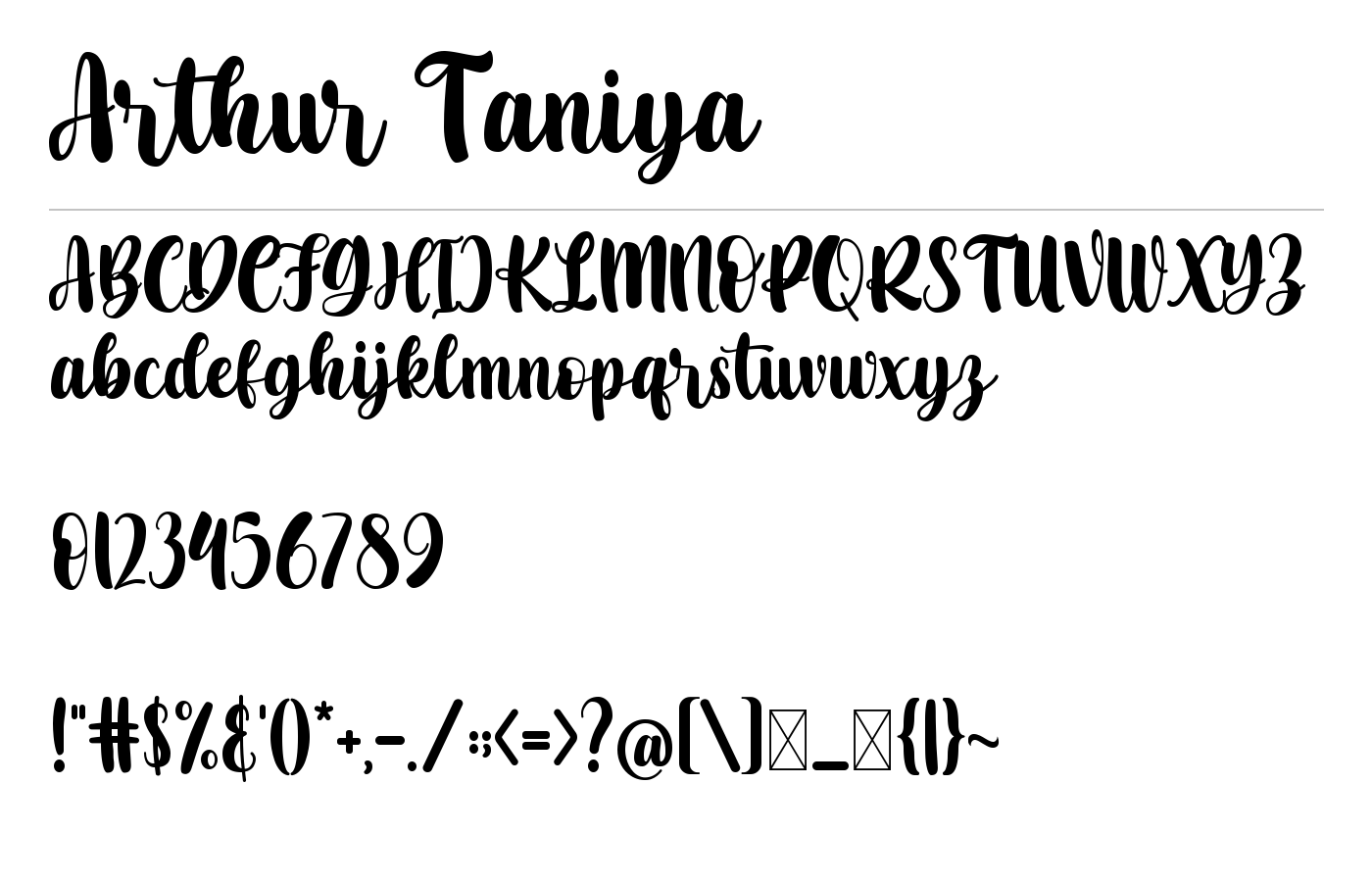
Arthur Taniya is a bold, lively script font with playful, flowing letterforms that bring a friendly and charming personality to any design. Its smooth, rounded strokes and unique character shapes make it perfect for creative branding, invitations, and headlines that need a warm, approachable touch. This font works well where a casual yet stylish handwritten feel is desired, adding a sense of personality and creativity.
Arthur Taniya Font
About Arthur Taniya Font
| Font family | Arthur Taniya Font |